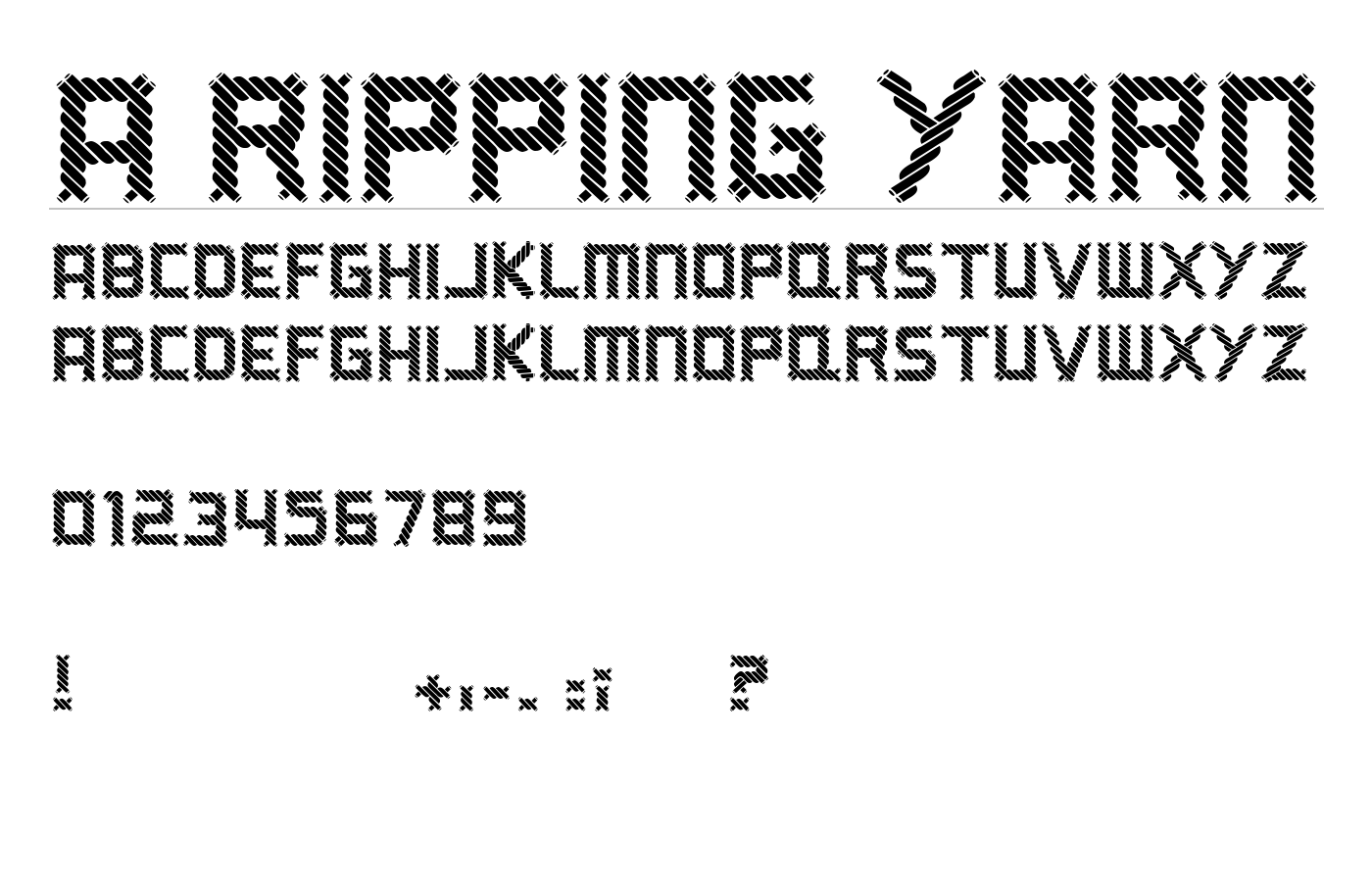
A Ripping Yarn is a bold, decorative sans serif font that cleverly mimics the texture of twisted yarn through its diagonal, rope-like stroke pattern. This all-caps typeface features a consistent, condensed width with a high x-height impression, giving it a strong, structured feel while maintaining a playful, craft-inspired character. Ideal for eye-catching headlines, logos, and creative packaging, it brings a unique handmade vibe suited for brands wanting to convey warmth, creativity, and originality.